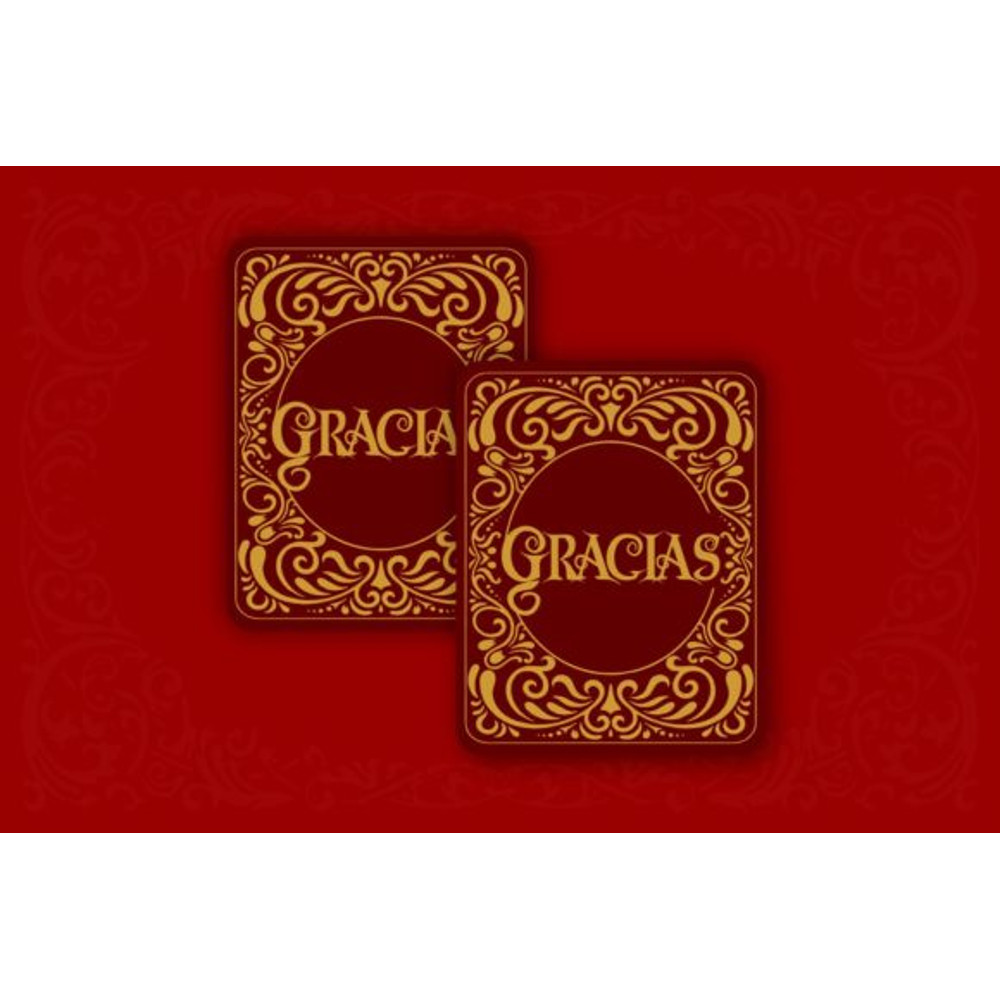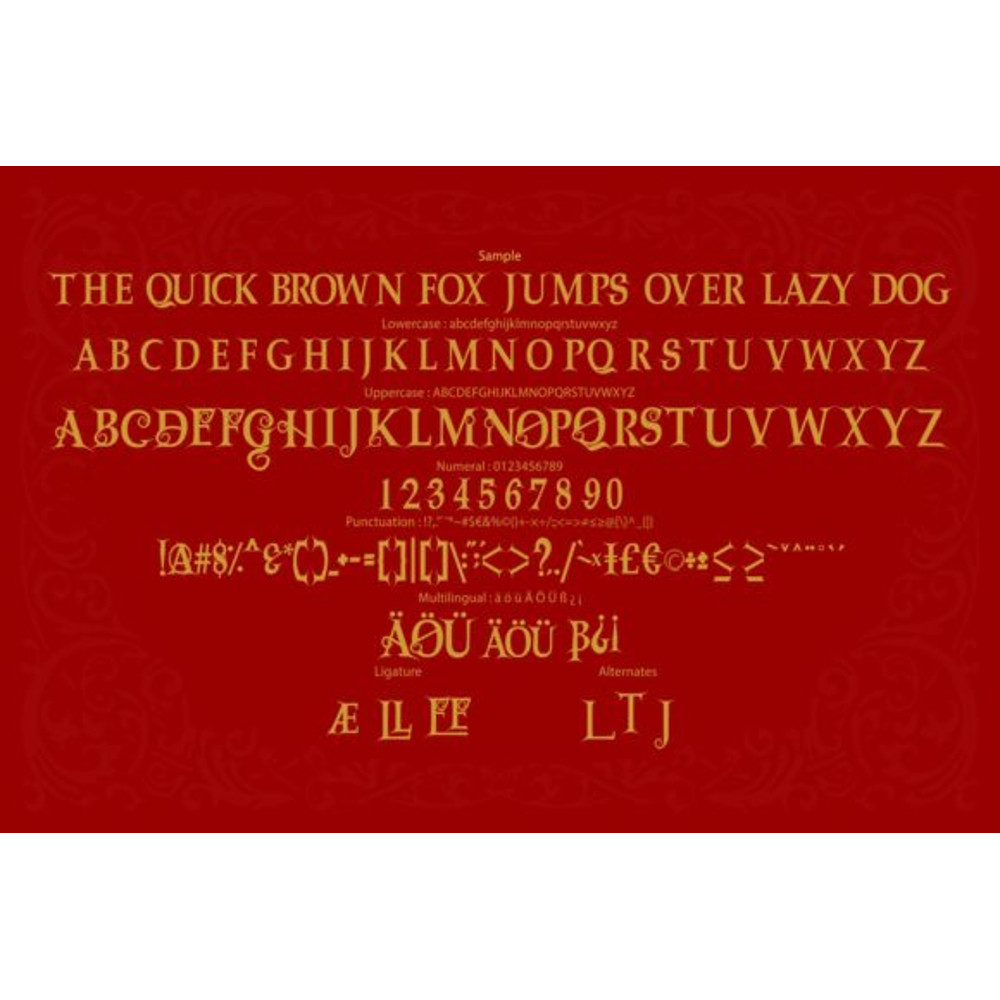
Dragon Font
Dragon is an incredibly unique display font. Masterfully designed to become a true favorite, this font has the potential to bring each of your creative ideas to the highest level!